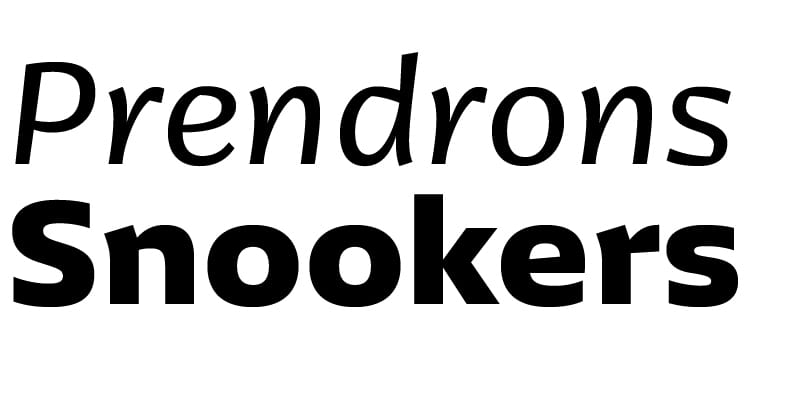
Jantar Sharp
Jantar Sharp is a text family with flared terminals that eludes the catego­ries of serif or sans. Its most recognisable features are taken from both styles to achieve proper design and high legibility standards. Jantar Sharp performs especially well when used for continuous reading including texts on web platforms. Its personality lies in the flared stroke endings and certain details which make its shapes neither sans nor serifs. Rather than following any particular historical model, it picks up elements from various periods to achieve an organically dynamic look which is entirely compatible with the reading process.
Jantar Sharp Italic makes a nice contrast, though the pace and proportions are not drastically different from the upright. This allows for effortless reading of longer passages of italicised text.
Jantar Sharp – as well as its teammate Jantar Flow – has been designed in seven weights from ExtraLight to Heavy, all with accompanying italics; it has a tabular and proportional set of figures in both old style and lining options are included together with a special set of hybrid figures sitting between x-height and capitals. Superscripts and subscripts are provided together with a vast collection of diacritics covering all European language and a set of case-sensitive characters.
Designer
Radek Łukasiewicz